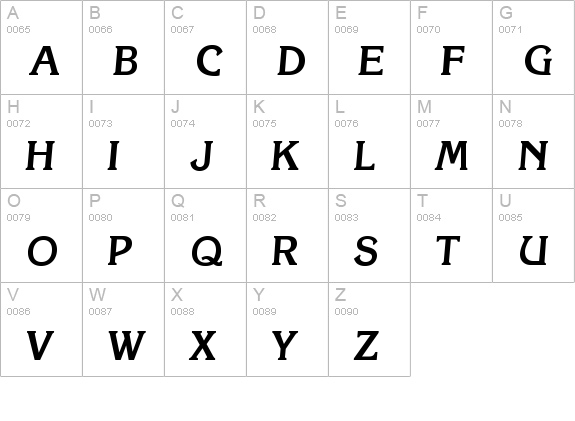
Korinth-DemiBoldIta is a stunning font that exudes elegance and sophistication. Its bold yet italicized appearance makes it perfect for adding a touch of flair to any design project. This versatile typeface is ideal for headlines, logos, branding materials, and more. The sleek curves and unique angles of Korinth-DemiBoldIta make it a standout choice for those looking to make a statement with their typography. Its modern aesthetic and attention-grabbing style will surely captivate your audience. What's even better is that this exceptional font is available for free download at FontsMarket.com. Simply head over to the website to get your hands on this premium typeface without having to spend a dime. Don't miss out on the opportunity to elevate your designs with Korinth-DemiBoldIta - download it today and let your creativity shine!